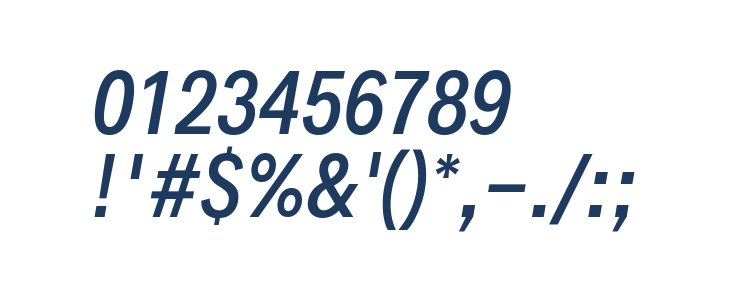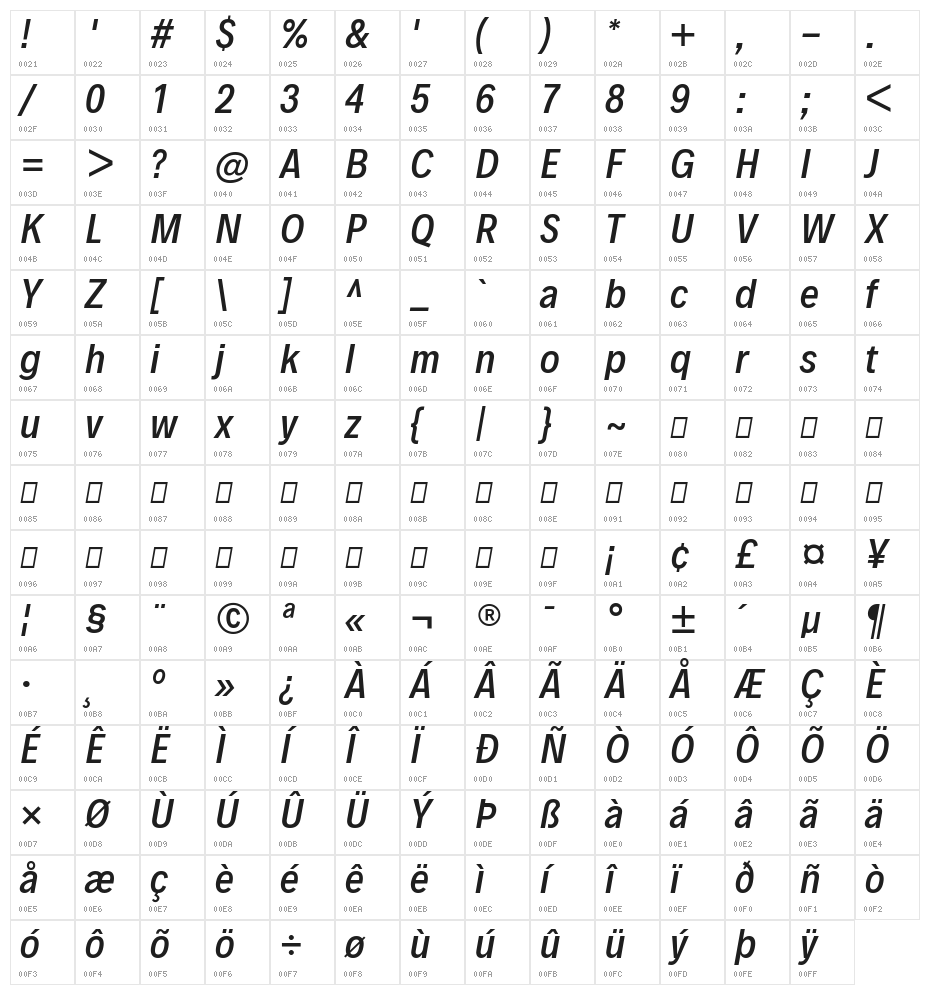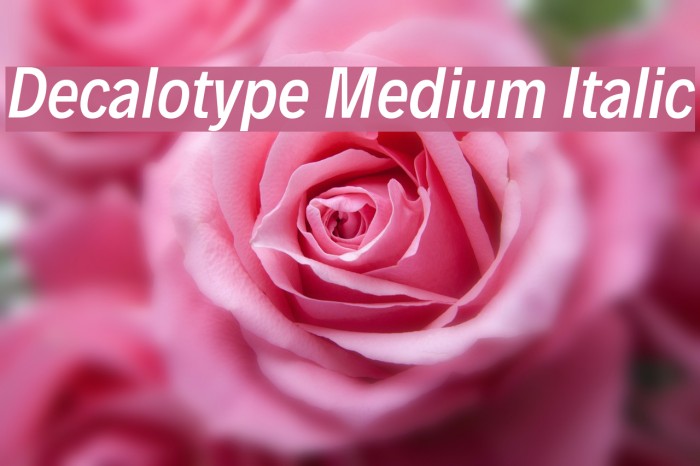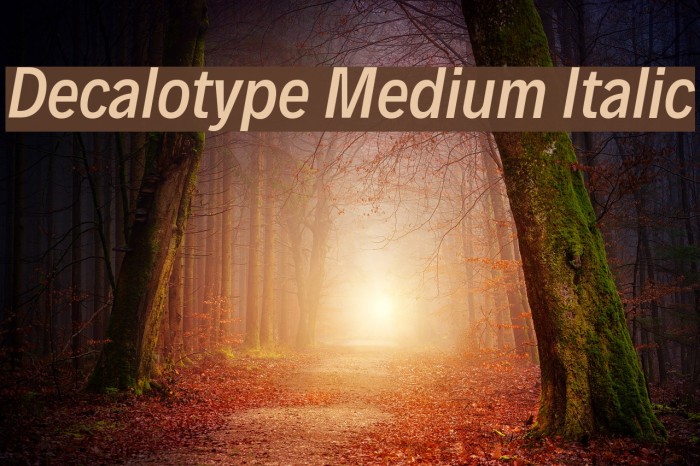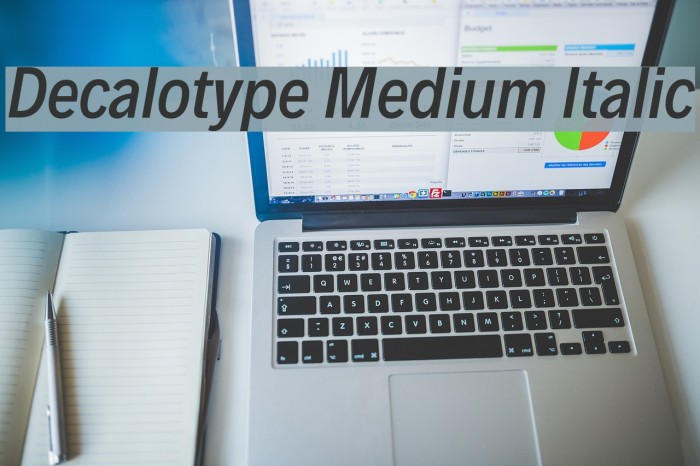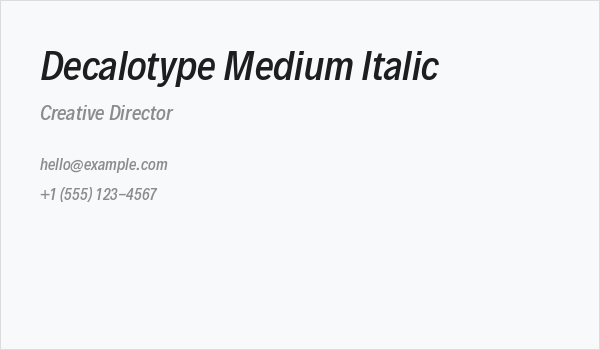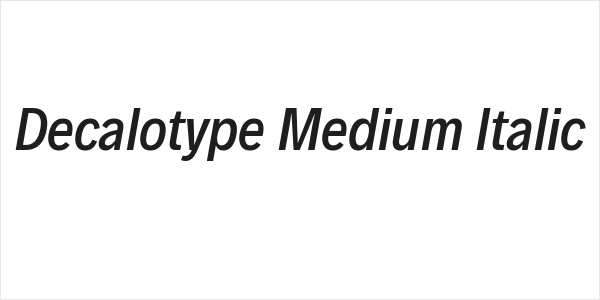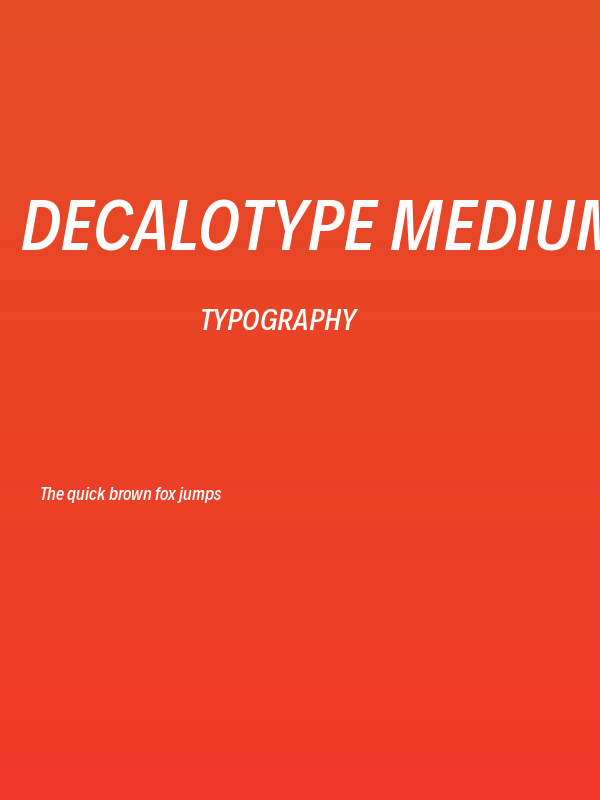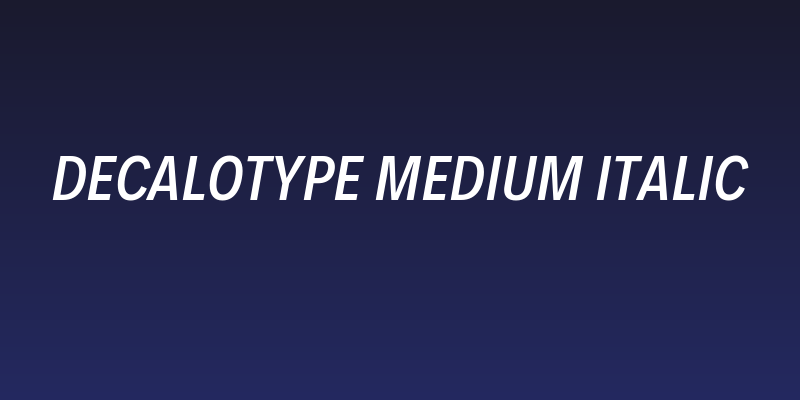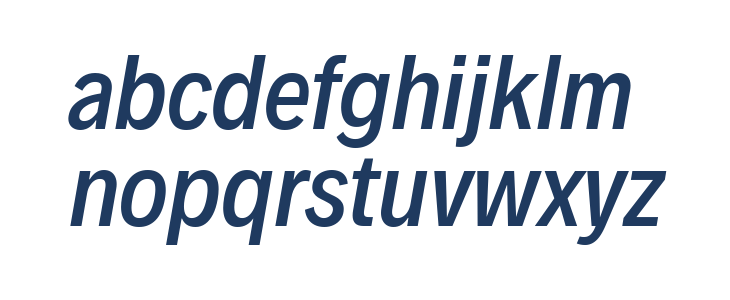
Decalotype Medium Italic Font
Decalotype Medium Italic Description
This font features a sleek, modern design with a slight italic slant, giving it a dynamic and forward-moving appearance. The characters are well-balanced with a medium weight, providing a clear and legible look. The sans-serif style ensures a clean and uncluttered presentation, making it suitable for various digital and print applications. The numerals and special characters are consistent with the overall style, maintaining uniformity across the typeface. The character spacing is normal, allowing for easy readability without appearing too tight or too loose.